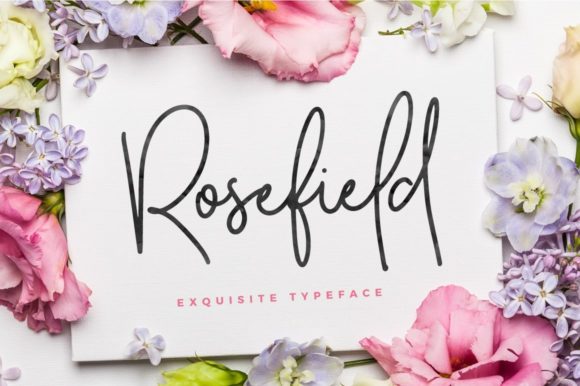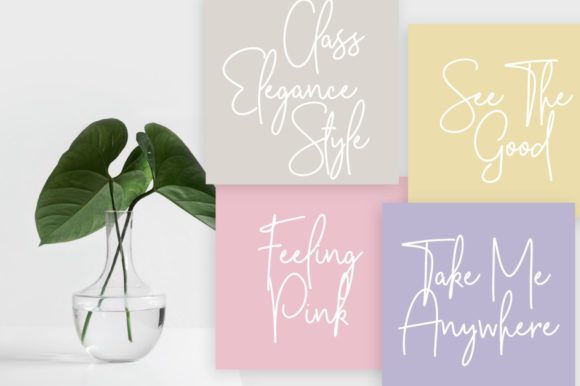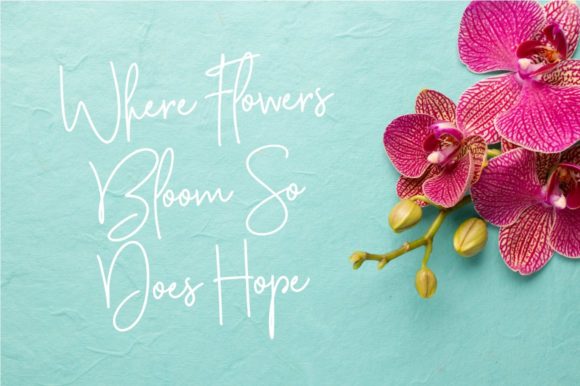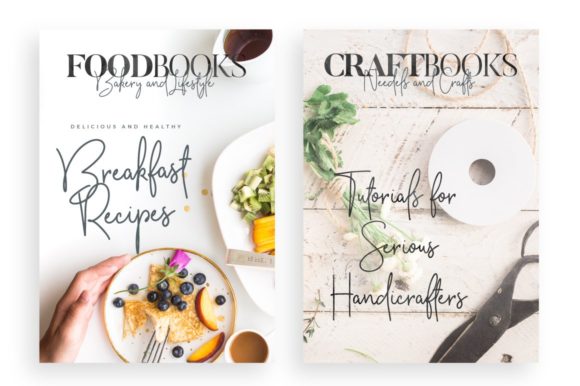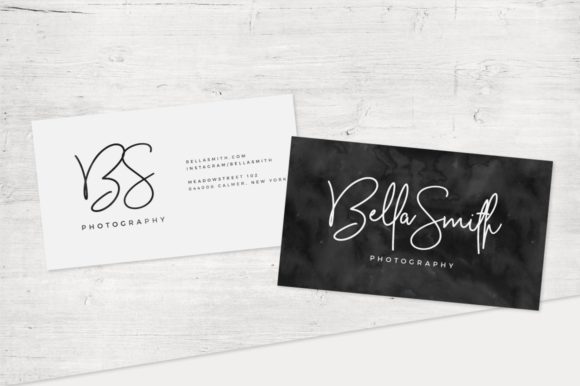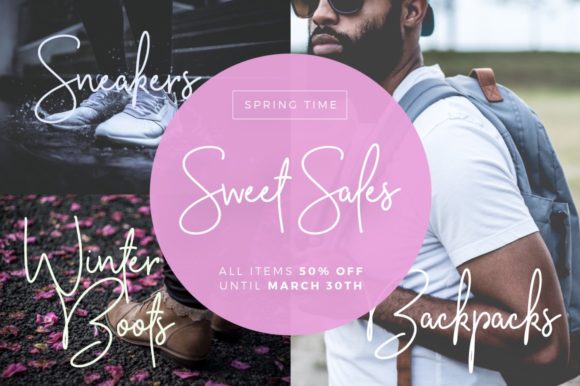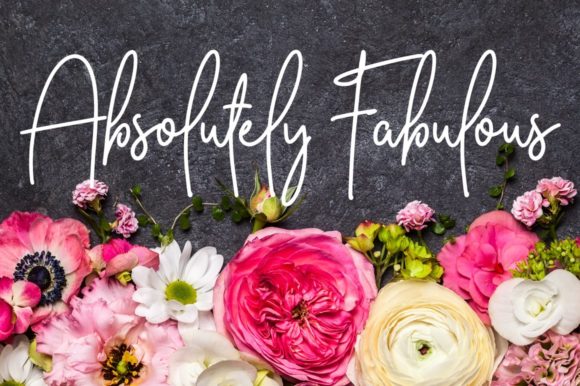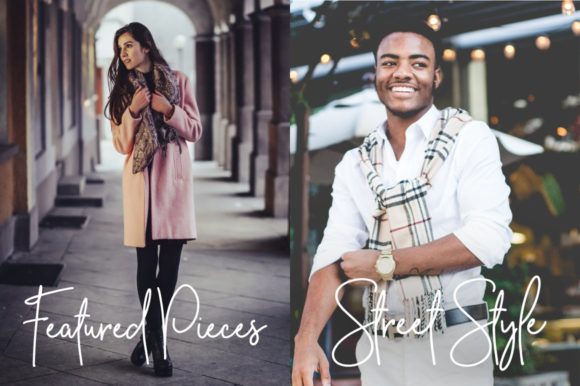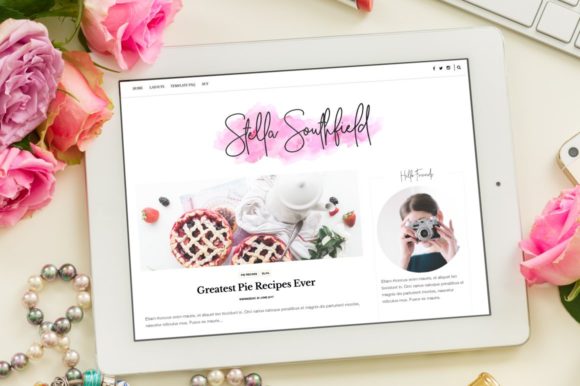
Rosefield Font
About Rosefield Font
Rosefield is a lovely script. It’s a soft-edged font with full alternates, designed to elevate wedding invitations, website logos, Instagram posts, and many more creative projects.